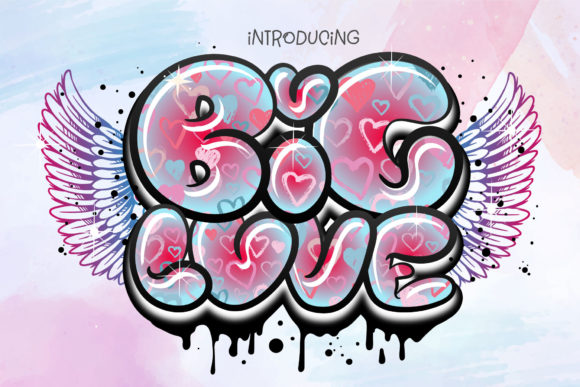
Introducing Big Love Font, a display font family that exudes urban vibes and love's aesthetic. Crafted by Nobu Collections, this outlined, graffiti-inspired font adds a touch of boldness to any design. Whether you're creating expressive logos, eye-catching posters, or trendy social media posts, Big Love Font is your creative companion.
With its striking presence, Big Love Font commands attention, making your designs stand out from the crowd. Its unique style speaks to the heart, evoking emotions and captivating your audience. Whether you're spreading messages of love, showcasing urban culture, or adding an edgy touch to your designs, Big Love Font has got you covered.
Embrace the limitlessness of your imagination with Big Love Font. Its versatile character set and diverse stylistic alternates provide endless possibilities for customization. Explore a world of creative typography, transforming your designs into captivating masterpieces. From urban art to heartfelt expressions, Big Love Font is your font of choice.